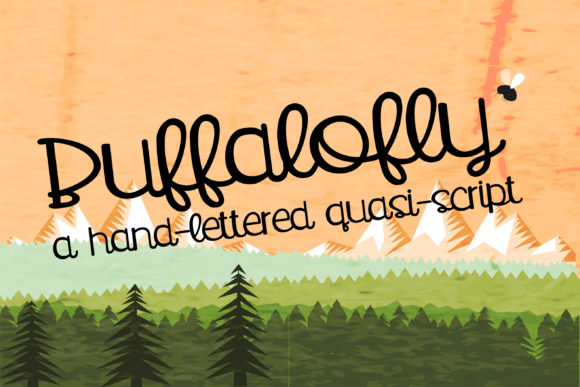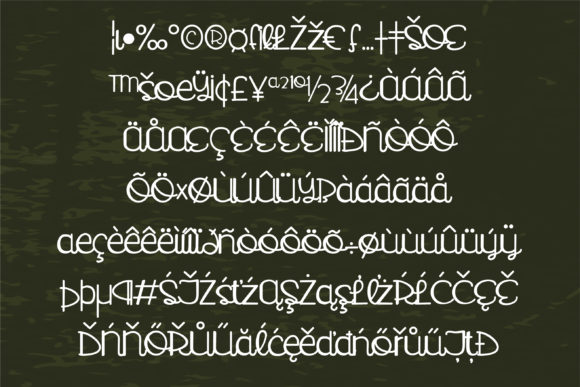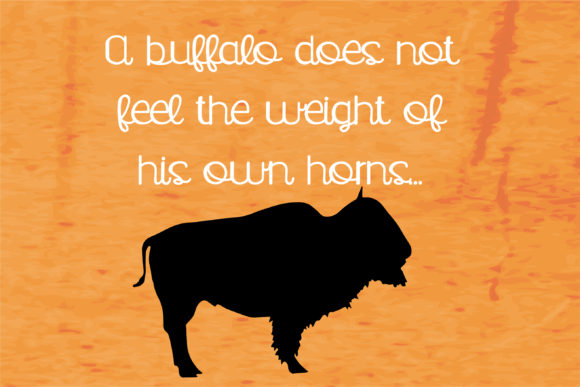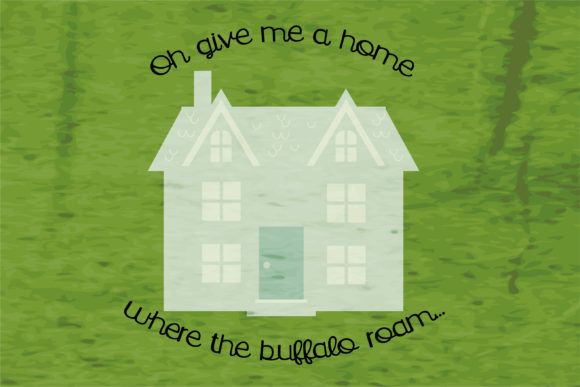
HomeScript FontsBuffalofly Font Script Fonts Buffalofly Font FacebookXPinterestWhatsApp Buffalofly Font Poster 2 Buffalofly Font Poster 3 Buffalofly Font Poster 4 Buffalofly Font Poster 5 About Buffalofly Font This hand-lettered quasi-script has upright casually scripted lettering that is part script/part print. DOWNLOAD ON CREATIVE FABRICAThis font is sold and delivered by Creative Fabrica. Font Canyon may earn a commission if you buy through this link. People also explored The Crayon Font Girly Font Offshore Script Font Black House Font Lovely Fabrich Font Blocked – Halloween Theme Font Cool Font Suddenly Font Antique Orange Gildan 5000 TShirt Mockup 288 0 TagsBuffalofly Font Previous articleStormbiter FontNext articleCoconut Script Font LEAVE A REPLY Cancel reply Comment: Please enter your comment! Name:* Please enter your name here Email:* You have entered an incorrect email address! Please enter your email address here Website: Save my name, email, and website in this browser for the next time I comment. Personal Use Free Boldist Personal Use Free Read more about this font Lover Loves Personal Use Free Read more about this font Arnitta Callina Personal Use Free Read more about this font Peachy Rose Personal Use Free Read more about this font BLOG Top 7 Google Fonts Alternatives for Faster and Privacy-Friendly Web Design (2025) Top 7 Google Fonts Alternatives for Faster and Privacy-Friendly Web Design (2025) When it comes to web typography, Google Fonts has long been the go-to... Free Fonts Risk: Why Free Fonts Can Be Dangerous for Designers 5 Fonts That Will Dominate Design Trends in 2026 The 10 Best Handwriting Fonts to Add Personality to Your Designs